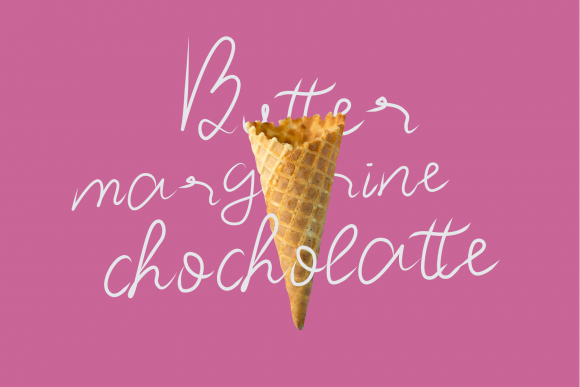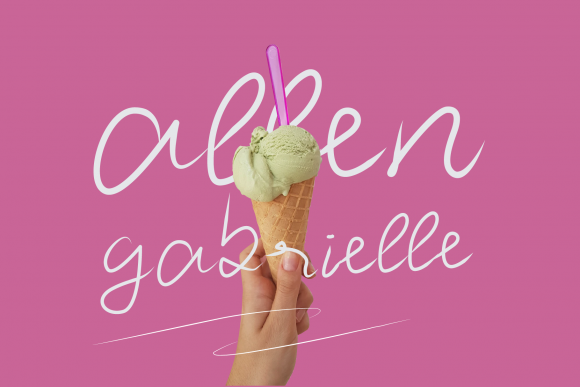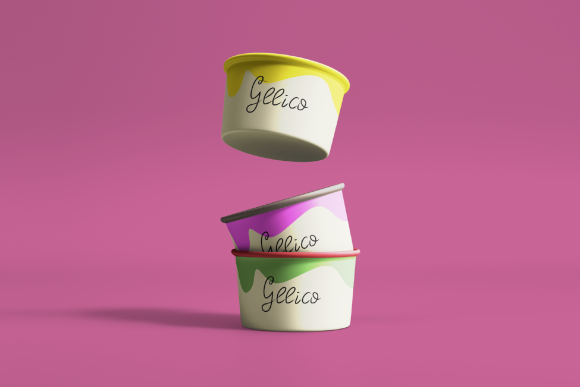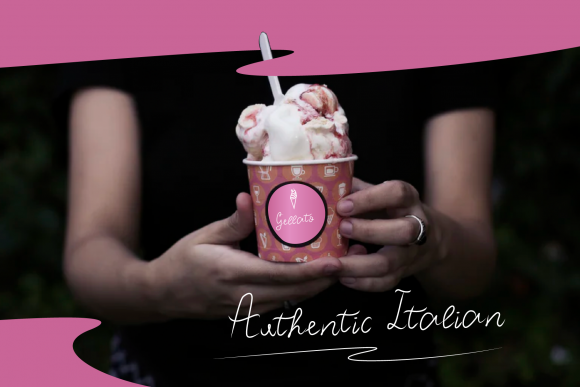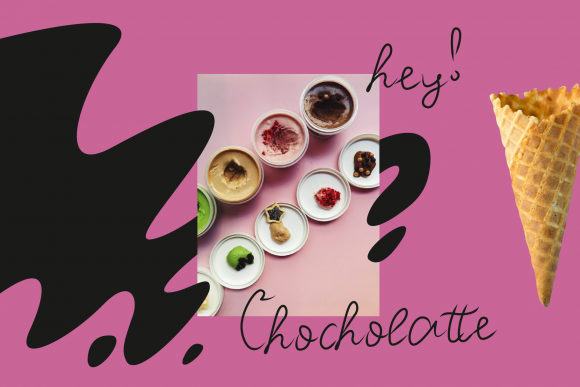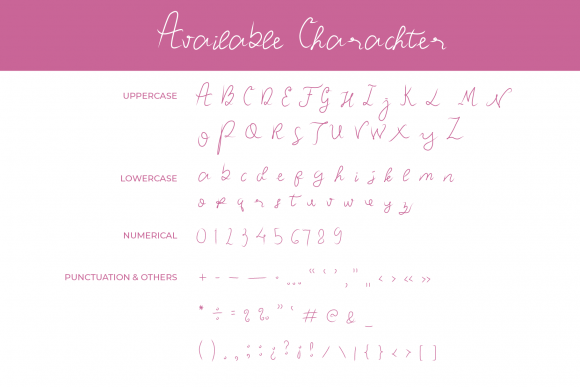
Gellato Font: The Sweet and Friendly Script Font for Romantic Designs
Are you looking for a font that can add a touch of romance and personality to your designs? Look no further than the Gellato Font! This sweet and friendly script font is perfect for creating beautiful wedding invitations, cards, and other designs that require a delicate and joyful touch.
What is Gellato Font?
Gellato Font is a dainty and joyful script font that is designed to bring a sense of elegance and sophistication to your designs. With its flowing curves and delicate lines, this font is ideal for creating romantic and personalized designs that will leave a lasting impression.
Characteristics of Gellato Font
So, what makes Gellato Font so special? Here are some of its key characteristics:
- Sweet and friendly: Gellato Font has a warm and inviting feel to it, making it perfect for designs that require a personal touch.
- Dainty and joyful: The font’s delicate lines and curves give it a playful and carefree feel that’s perfect for wedding invitations, cards, and other celebratory designs.
- Romantic: Gellato Font is designed to evoke feelings of love and romance, making it perfect for wedding-related designs and other romantic projects.
- Personalized: The font’s unique and hand-crafted feel makes it perfect for designs that require a personal touch.
Uses for Gellato Font
Gellato Font is a versatile font that can be used for a variety of design projects, including:
- Wedding invitations: Create beautiful and romantic wedding invitations that will set the tone for the big day.
- Cards: Add a personal touch to your cards and greetings with Gellato Font’s delicate and joyful feel.
- Stationery: Use Gellato Font to create elegant and sophisticated stationery that will make your correspondence stand out.
- Signage: Add a touch of romance and whimsy to your signage with Gellato Font’s playful and carefree feel.
Why Designers and Crafters Love Gellato Font
So, why do designers and crafters love Gellato Font? Here are just a few reasons:
- Customization: The font’s unique and hand-crafted feel makes it easy to customize and pair with other fonts.
- Versatility: Gellato Font can be used for a variety of design projects, from wedding invitations to signage.
- Emotional connection: The font’s romantic and personalized feel helps to create an emotional connection with the viewer.
Tips for Using Gellato Font
Here are a few tips for using Gellato Font in your designs:
- Pair with other fonts: Experiment with pairing Gellato Font with other fonts to create a unique and visually appealing design.
- Use for headings: Gellato Font is perfect for headings and titles, where its delicate and joyful feel can really shine.
- Add embellishments: Consider adding embellishments, such as flowers or greenery, to enhance the font’s romantic and whimsical feel.
In conclusion, Gellato Font is a sweet and friendly script font that’s perfect for designers and crafters looking to add a touch of romance and personality to their designs. With its dainty and joyful feel, this font is ideal for wedding invitations, cards, and other designs that require a delicate and personalized touch. So why not give Gellato Font a try and see how it can elevate your designs?